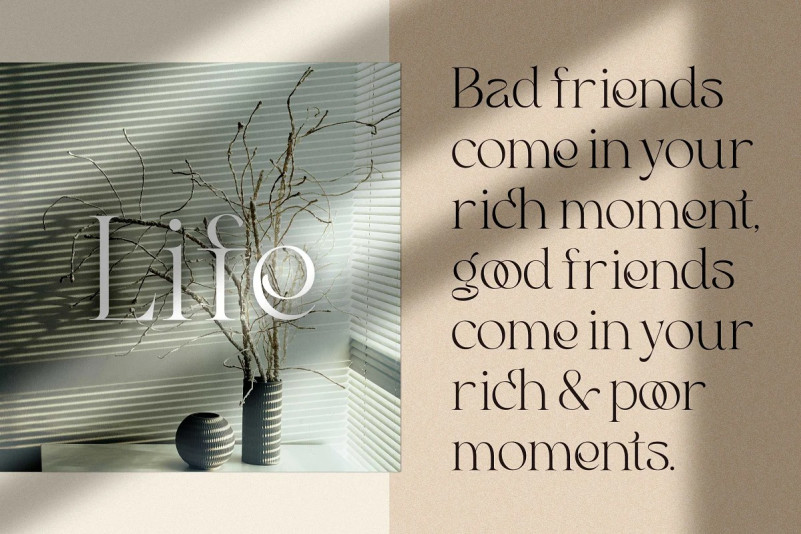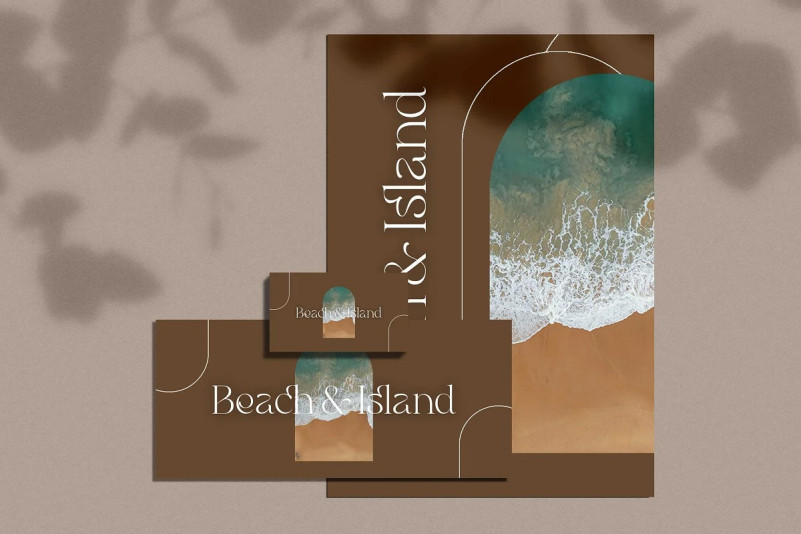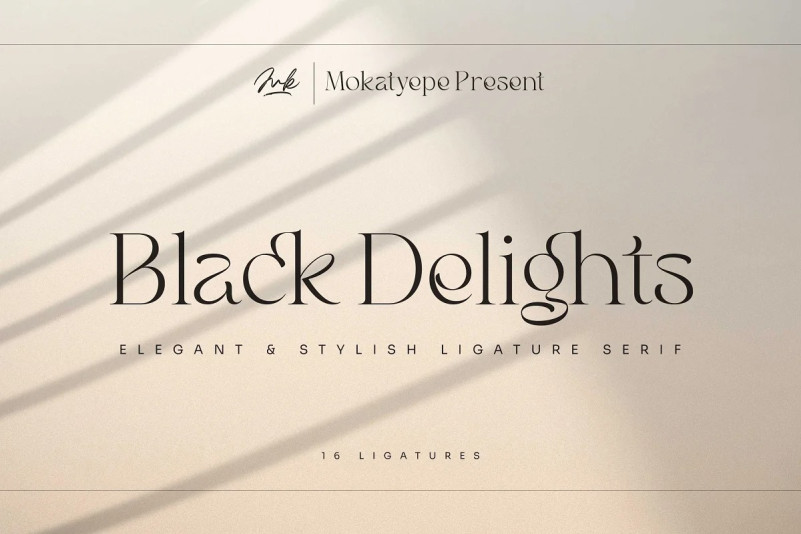
Black Delights Font
Hello Introducing, Black Delights Serif Font – Elegant Ligatures Connected Serif is an elegant and unique font that uses ligatures to smoothly link letters. Perfect for adding a unique twist to word-mark logos, monograms or pull quotes. Black Delights has 16 ligatures as well making it super fantastic.Ligature can be turned off if required standard writing needs.